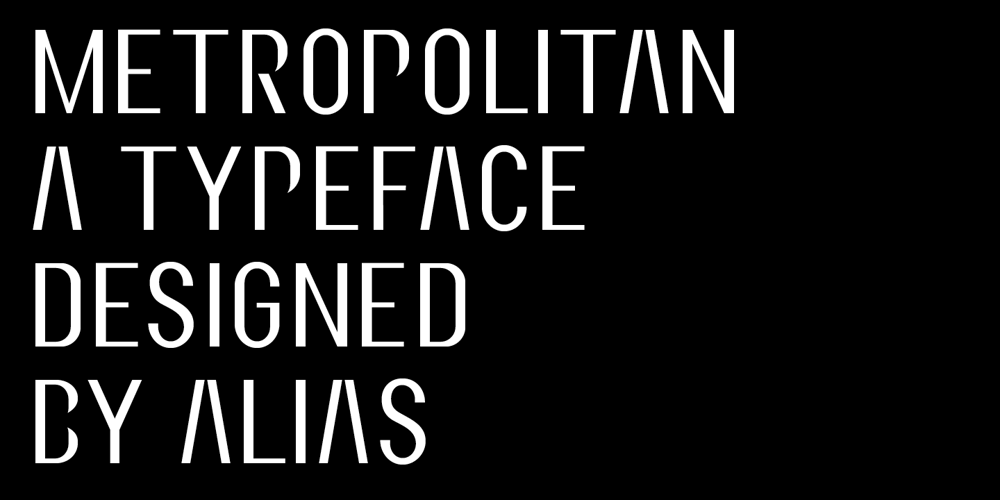
Metropolitan Font Family was designed by Gareth Hague and published by Alias Collection. Metropolitan contains 1 styles and family package options. Originally developed as a logotype proposal for the Metropolitan Hotel in Park Lane, London. Available in upper case only, Metropolitan is a pure, streamlined, contemporary display typeface.